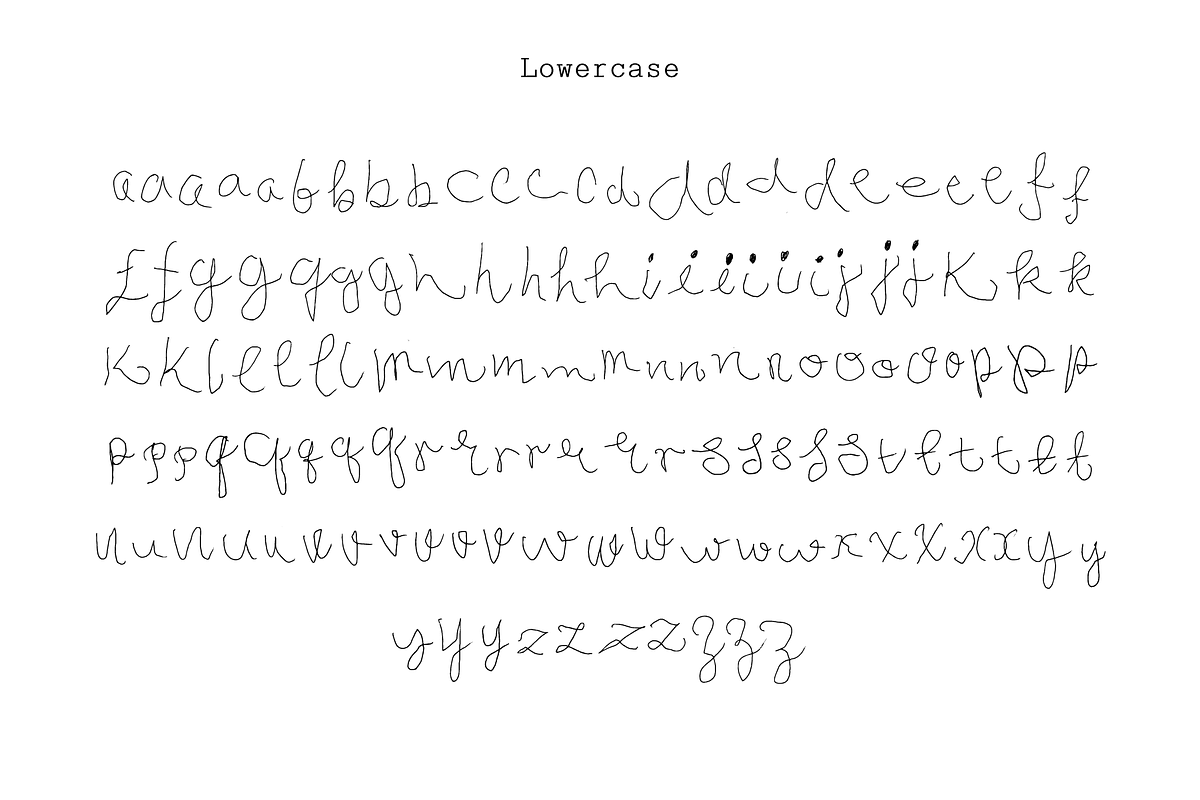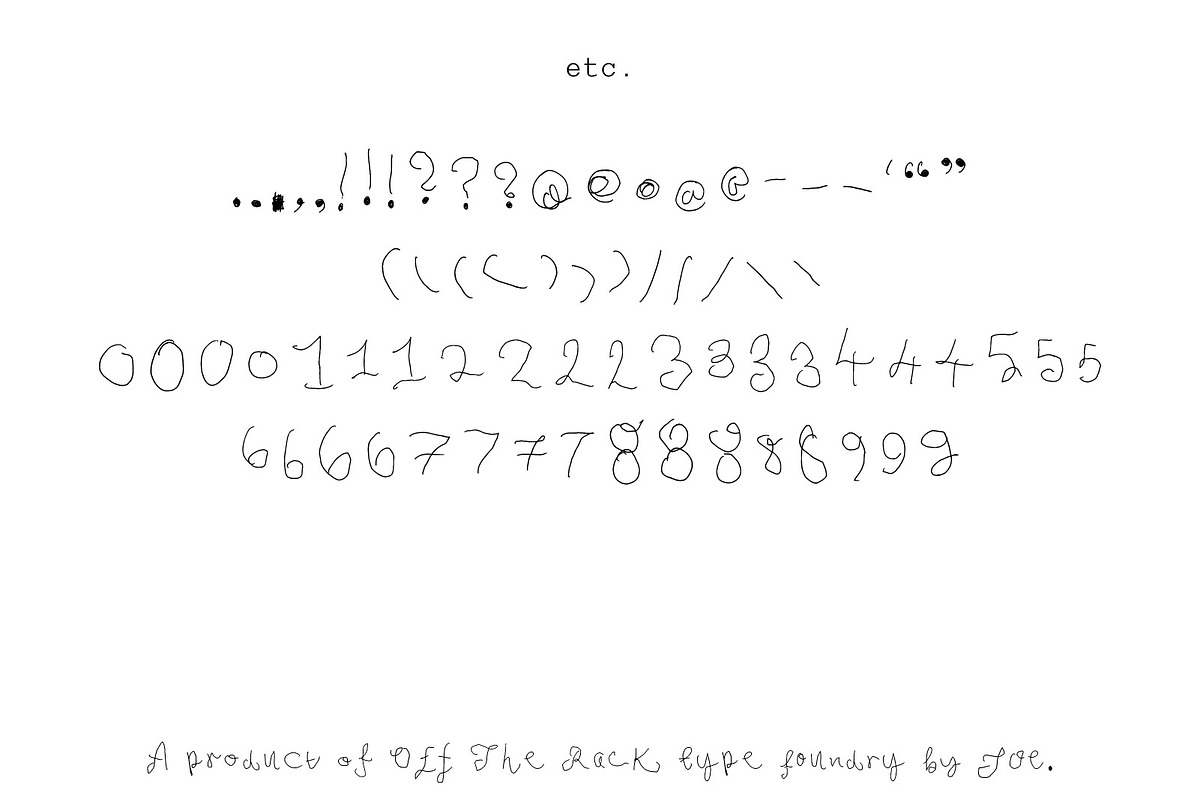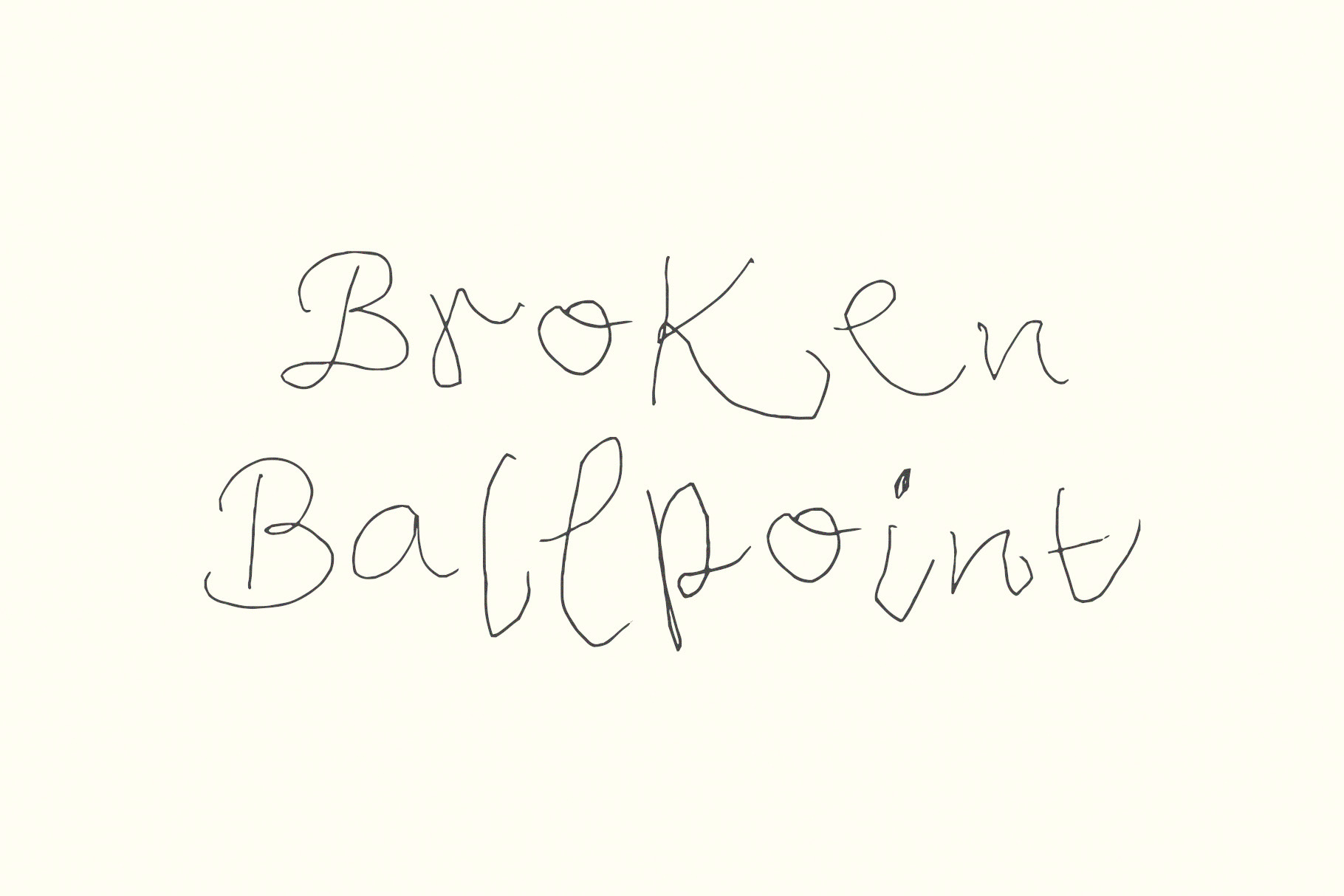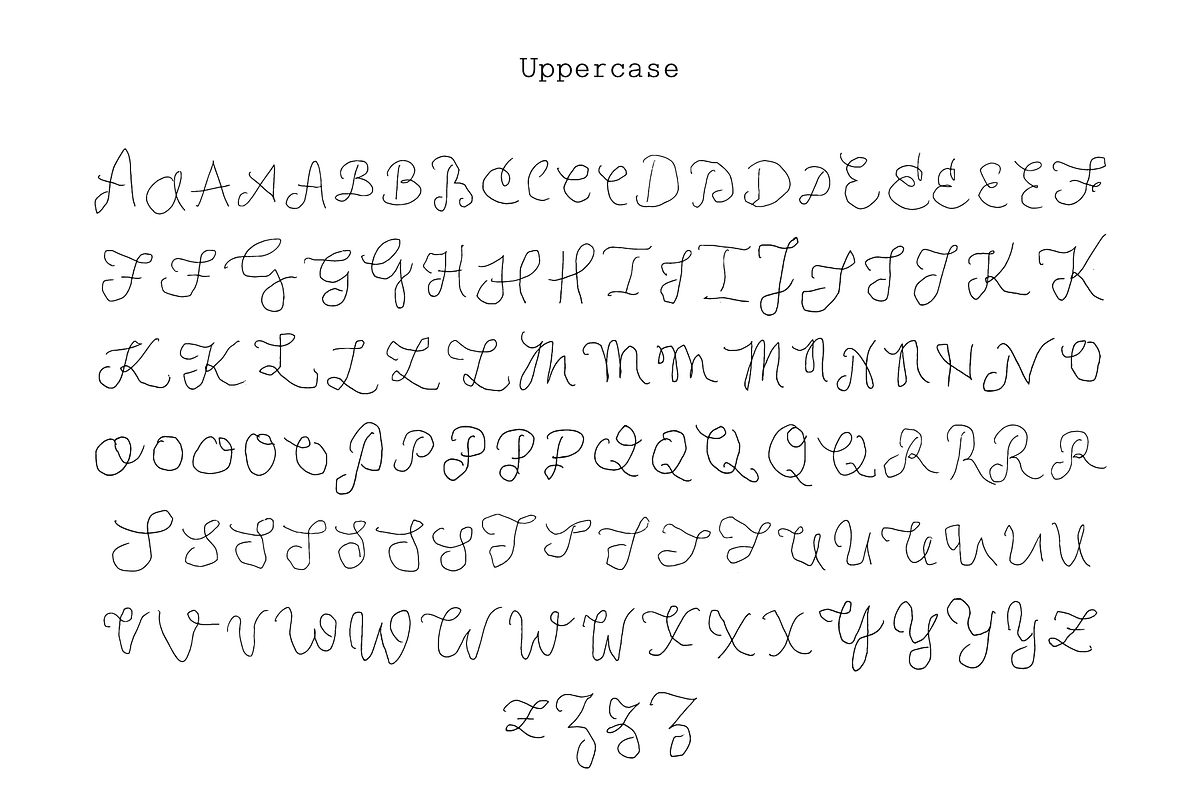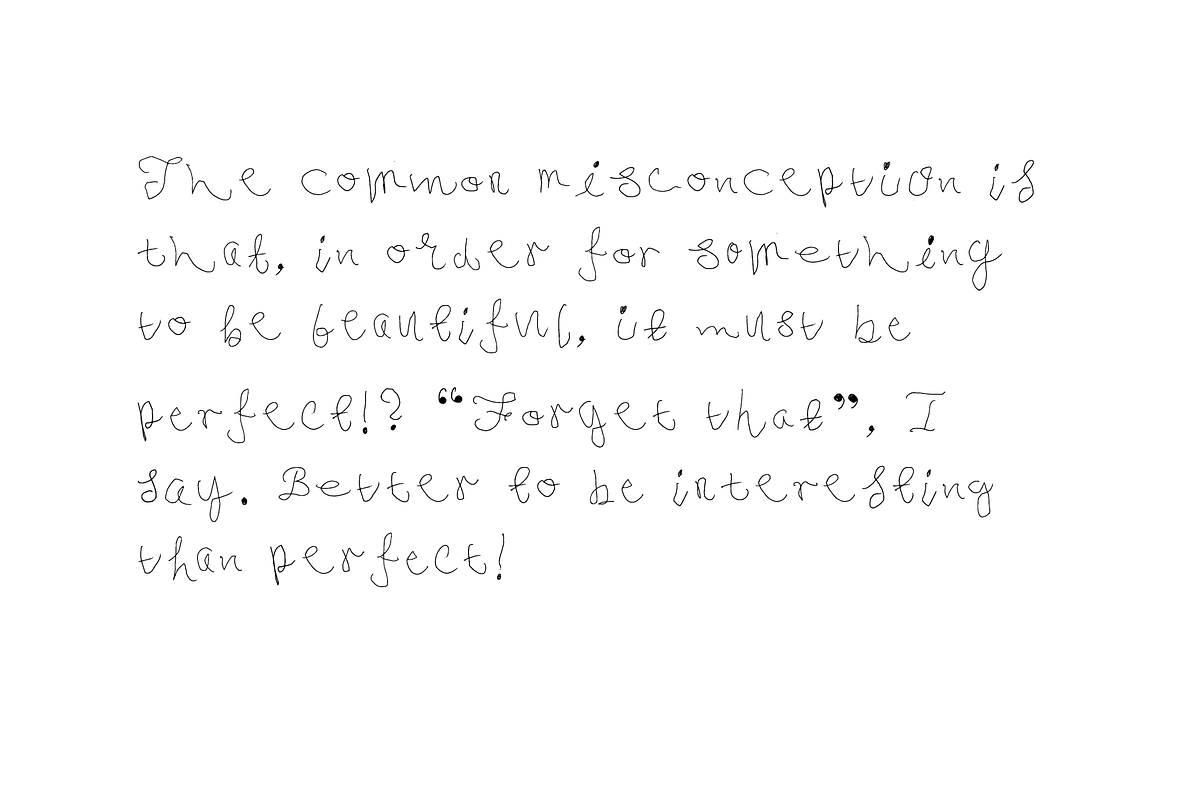
Broken Ballpoint | Handwriting Font
BONUS - now includes alternative handwriting style: Freckled Nib.
Broken Ballpoint is a handwritten display typeface - Initially drawn on copy paper with a ballpoint pen, then scanned in and turned into a font, it's the exact opposite of what a font should be... and yet something about it is exactly right?